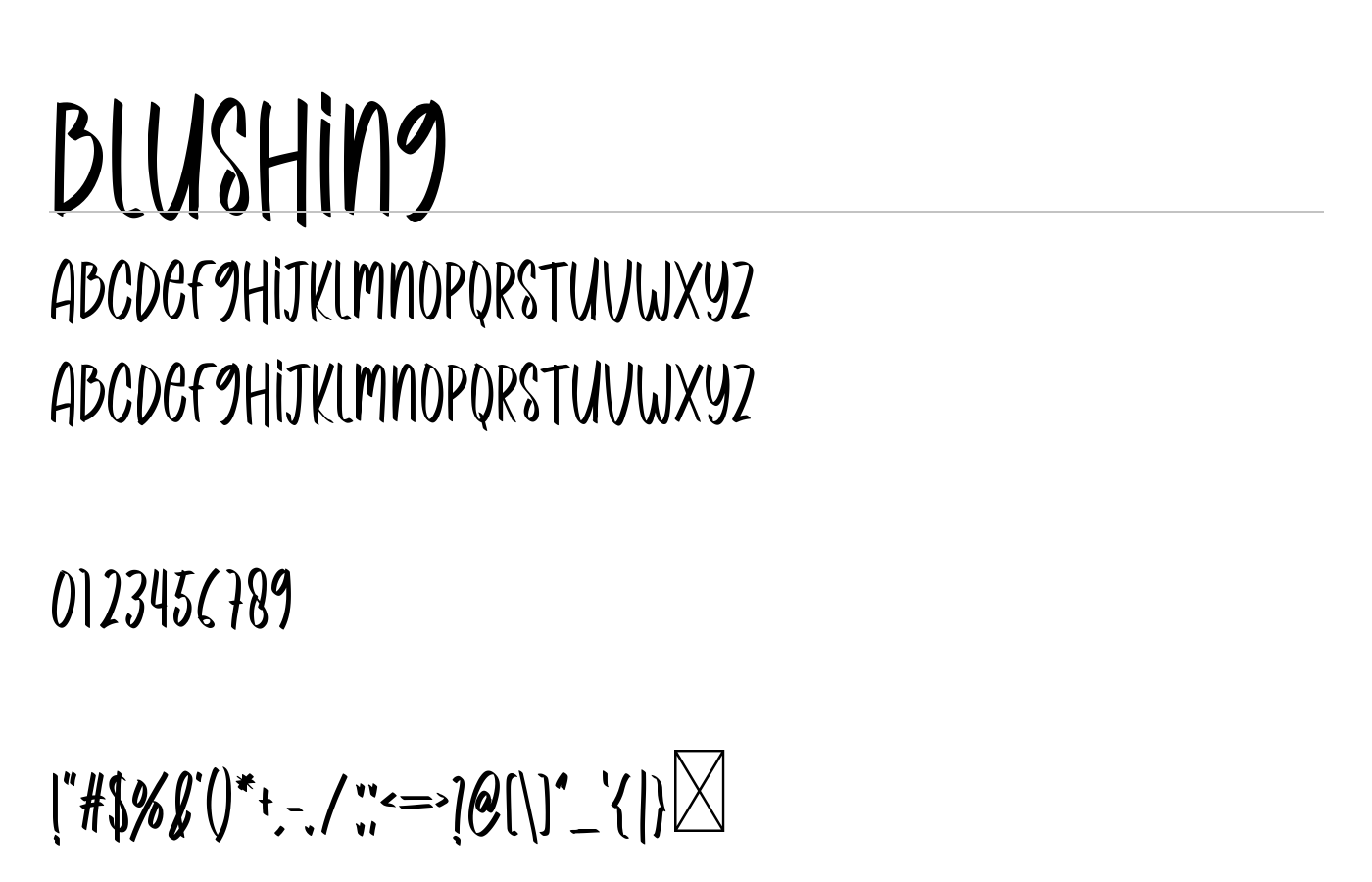
Blushing Font is a playful, hand-drawn sans serif typeface with narrow, tall letterforms and a lively, casual feel. Its uneven strokes and quirky character shapes make it perfect for creative projects that want to convey friendliness and personality, such as informal branding, invitations, or artistic headlines. This font stands out in designs that need a fun and approachable touch without sacrificing readability.
Blushing Font
About Blushing Font